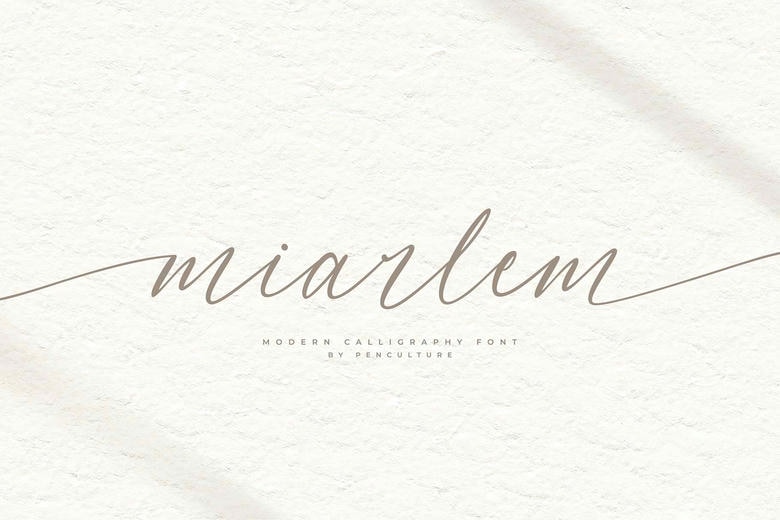
Miarlem Font
Miarlem is a modern calligraphy font best suitable for use mainly in branding, weddings, apparels, and so on. This font is designed with duly catchy and charming uppercase and lowercase, punctuation and the support of multilingual language. This font also includes a beautiful starting and ending curve and shapes called ligature that will be very suitable for your design work.
Miarlem Calligraphy Script Font